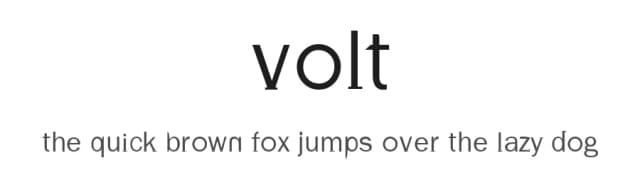
About Leggibilmente Font
Leggibilmente is a sans-serif font. It includes 494 glyphs, a extralight weight, TTF (TrueType) format, and 277 languages. Leggibilmente is free to download; check the license details on this page before commercial use. Sans-serif fonts like Leggibilmente work best for clean body text, user interfaces, branding, and modern layouts.
- Ultra-light, Clean, Modern, Sans Serif
- Variable font Β· axes: wght, ital
Leggibilmente supports 277 languages.
Leggibilmente Font is a versatile sans-serif font that works for both headings and body text. Pair it with a contrasting serif or slab serif font to add visual interest and a clear distinction between titles and body copy.
Leggibilmente Font
Leggibilmente Font is a sans serif typeface, ideal for logos, invitations, branding, and creative projects.